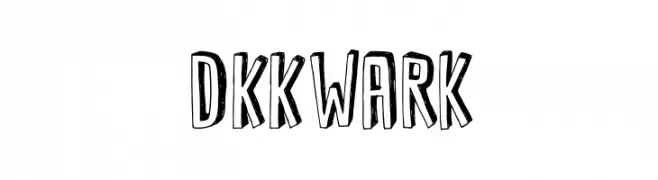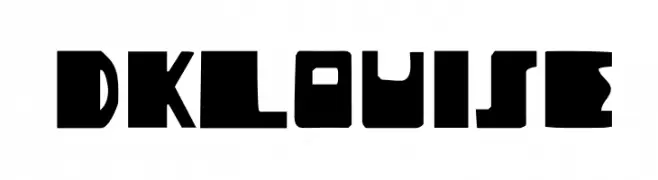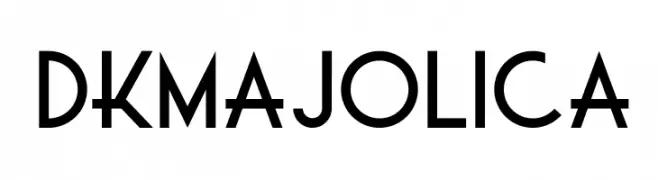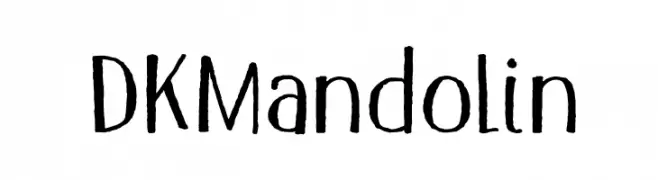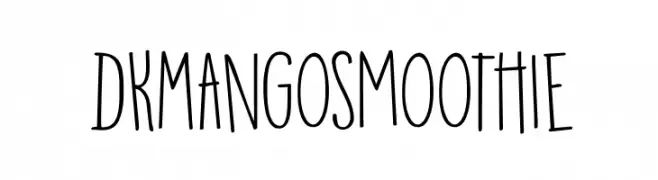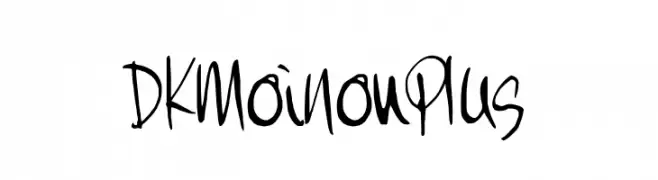
A whimsical, handwritten font with tall, narrow letters and a playful style.
A bold, geometric font with sharp, angular characters.
A playful, casual handwritten font with uneven strokes and a friendly appearance.
A bold, hand-drawn 3D font with a playful, artistic style.
A dynamic, expressive handwritten font with fluid strokes.
A whimsical and decorative font with elaborate curls and swirls.